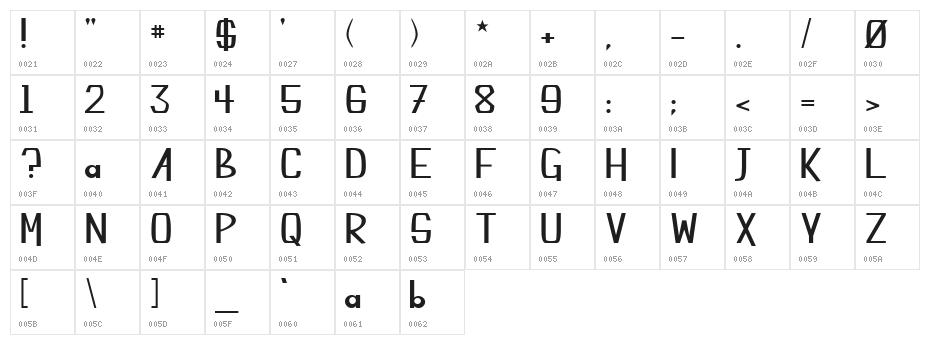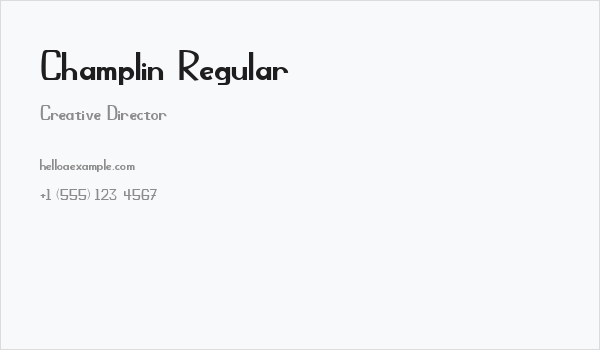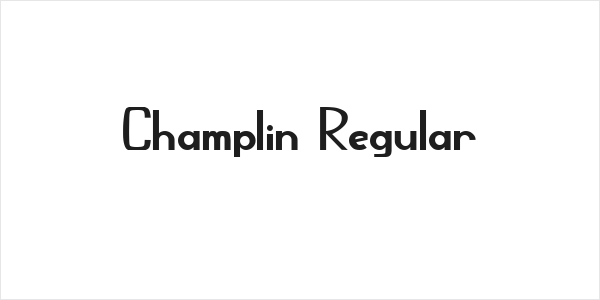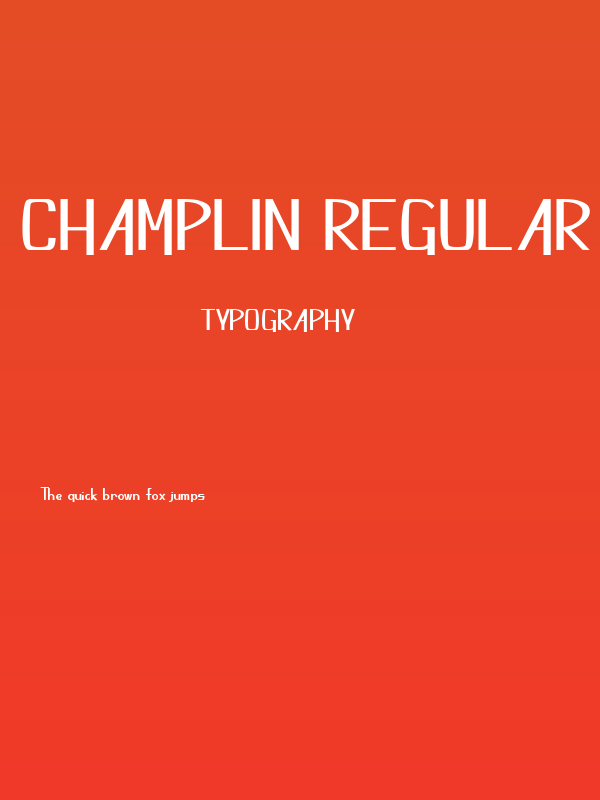
Champlin Regular Font
Champlin Regular Description
This font features a unique blend of geometric and modern design elements, characterized by its clean lines and distinct angular forms. The uppercase letters exhibit a bold and structured appearance, while the lowercase letters maintain a consistent flow with rounded edges. The numerals are designed with a futuristic touch, adding to the overall modern aesthetic. Special characters are crafted with precision, enhancing the font's versatility. Its balanced proportions and clear legibility make it suitable for a variety of design applications.
| Use Case | Headlines, Logos, Digital media |
| Proposed Projects | Ideal for branding, advertising, and digital media projects that require a contemporary and distinctive look. |